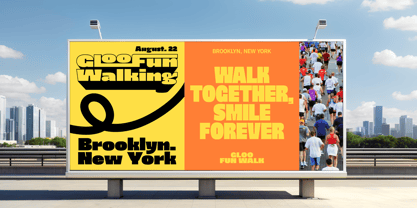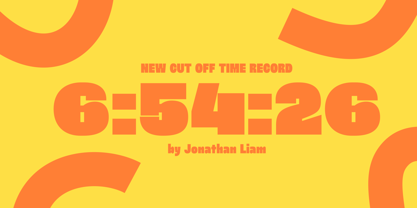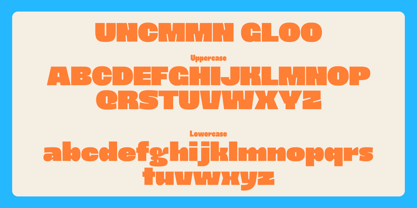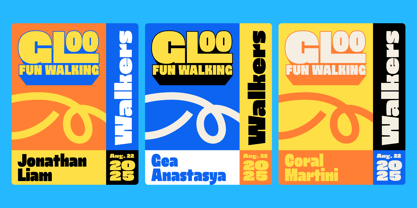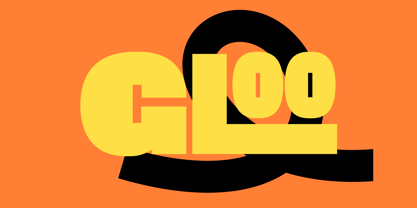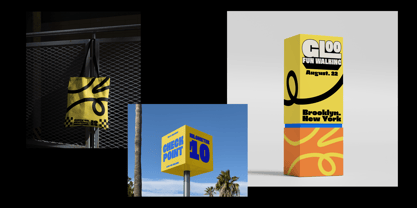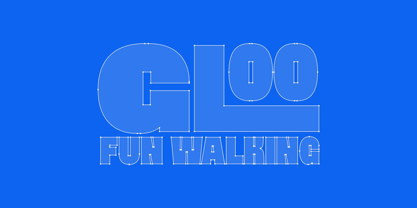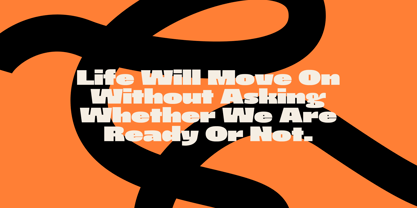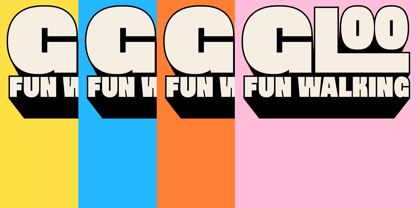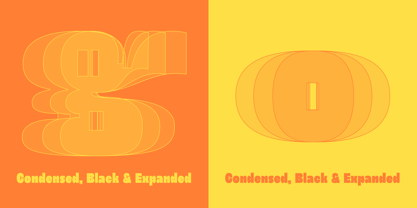
UNCMMN Gloo
La familia tipográfica UNCMMN Gloo fue diseñada por Wahyu Ichsan Fauzi y publicada por Uncmmn Lab. UNCMMN Gloo contiene 3 estilos y opciones de paquete familiar. Más información sobre esta familia
UNCMMN Gloo is a bold, rounded sans serif display typeface that emphasizes simple yet expressive geometric forms. Designed with a playful approach while maintaining legibility, Gloo is perfect for headlines, visual identities, and design projects that aim to stand out with a modern and confident tone. Its signature features include chunky letterforms and soft, rounded terminals, giving it a friendly, fun, and highly distinctive personality. This typeface embodies UNCMMN’s experimental spirit—blending visual uniqueness with solid functionality.